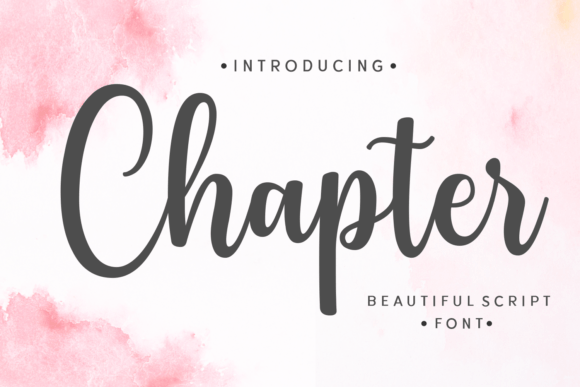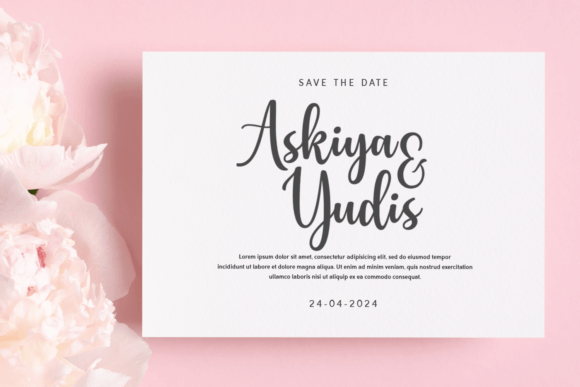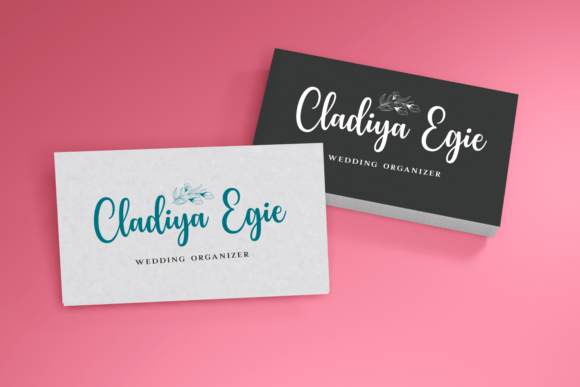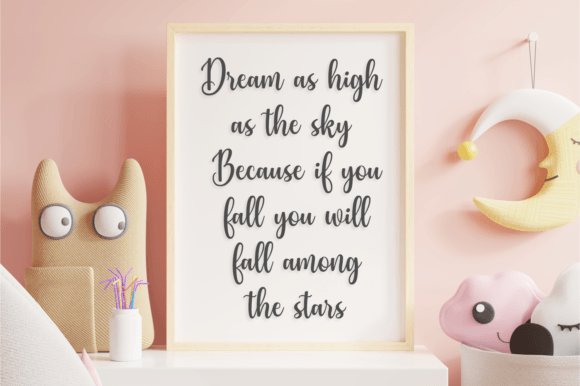
Chapter Font: Elegant Script for Wedding Invitations & Branding
About the Chapter Font
Let us introduce you to Chapter Font, where timeless design meets modern craftsmanship. Meet “Chapter,” a stunning script font that adds a touch of elegance to your text. With its graceful curves and artistic flair, Chapter brings a beautiful and sophisticated vibe to any project. Perfect for invitations, quotes, or anything where you want to infuse a bit of timeless charm. Let the Chapter tell your story with its graceful and expressive design.
Chapter’s elegant, flowing forms are ideal for headlines, short text blocks on invitations or certificates, and logos requiring a touch of refined sophistication. It excels in branding for luxury goods, boutique hotels, or high-end publications. However, its delicate strokes and decorative nature make it unsuitable for body text or UI elements where readability is paramount.
Pairing Chapter with a clean sans-serif like Montserrat or a geometric sans-serif like Futura provides excellent contrast and enhances readability in applications where both fonts are used. For a warmer feel, a serif like Garamond or a slightly more playful serif like Playfair Display could also work well, depending on the desired overall tone.
Chapter projects a feeling of classic elegance and timeless sophistication. Its graceful curves and subtle details make it perfect for brands that prioritize quality, heritage, and a sense of understated luxury.
Chapter Font Usage Examples
Chapter Font Example